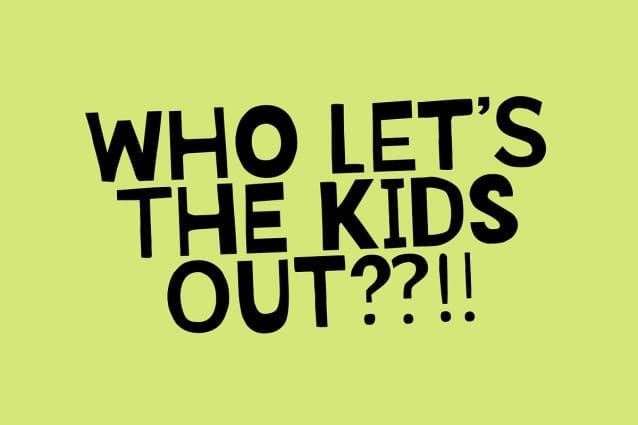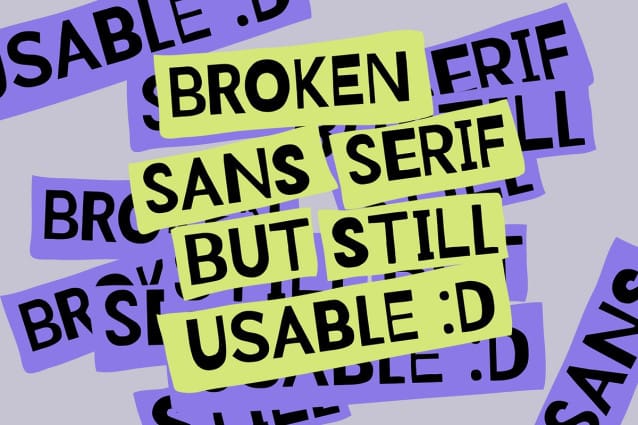
Mixerato Font
Mixerato Font, a playful and imperfect handmade sans-serif font that brings charm and creativity to any project. This unique typeface comes with two font styles, each featuring alternates to give your designs extra versatility and a truly handcrafted feel. Perfect for branding, packaging, posters, social media graphics, and DIY projects, Mixerato Font adds a personal, quirky touch that stands out in both digital and print media. Its natural imperfections and bold character make it ideal for creating friendly and engaging visuals. Elevate your designs with the authentic, handcrafted personality of Mixerato.